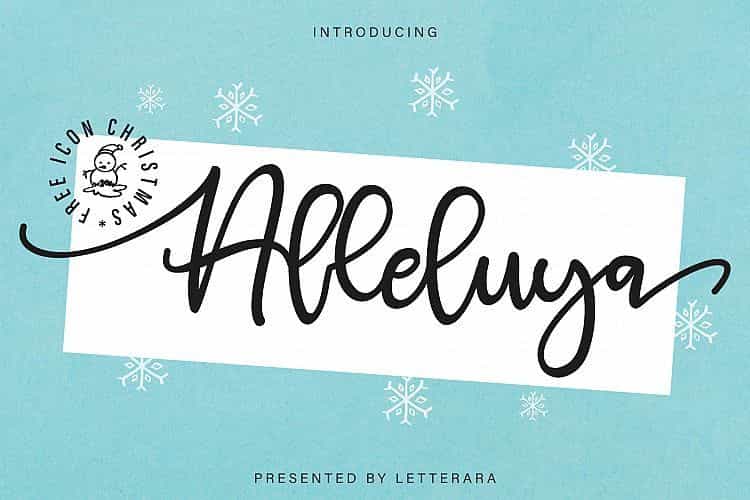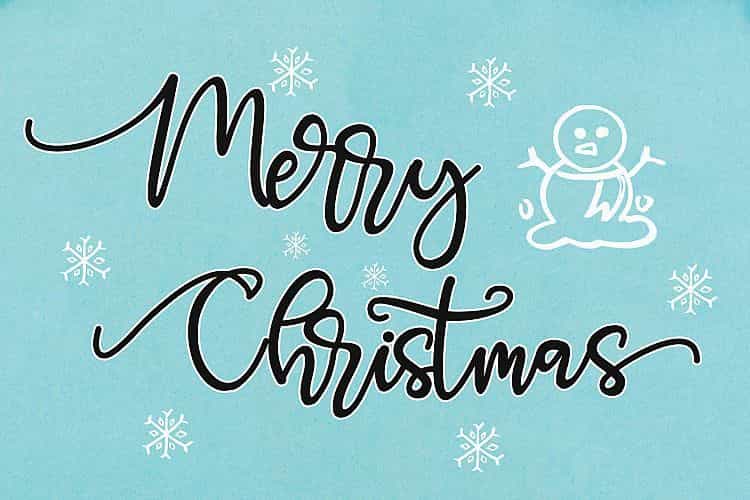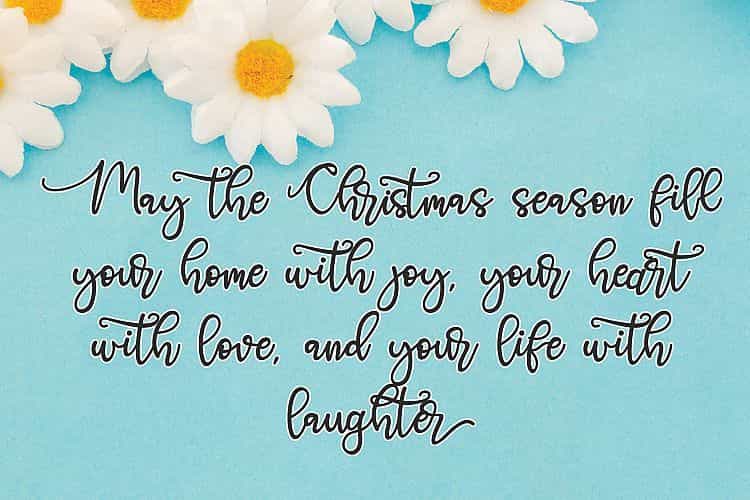
Alleluya Font
Discover Alleluya Font, part of the  Calligraphy  Handwritten collection—a versatile and unique font perfect for adding a personal touch to your projects. Download it for free and enjoy crafting designs with style, from invitations to social media posts. This font is available exclusively for personal use, giving you the freedom to create without limits. Unlock your creativity with Alleluya Font today!
It is true that Alleluya is a beautiful font family. The several styles perfectly complement each other and will help you make your project more complete and bright. It has decorative characters and a dancing lineage which will look perfect on invitations, greeting cards, branding materials, business cards, quotes, posters and much more!